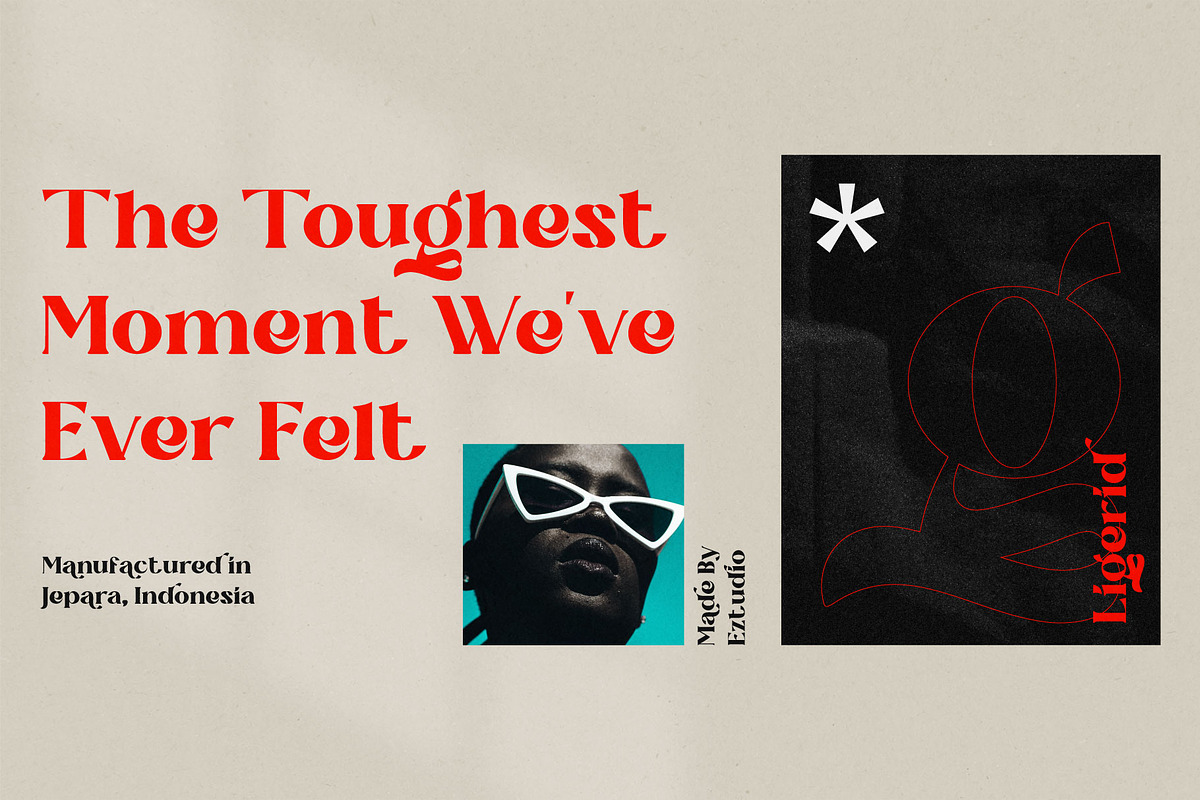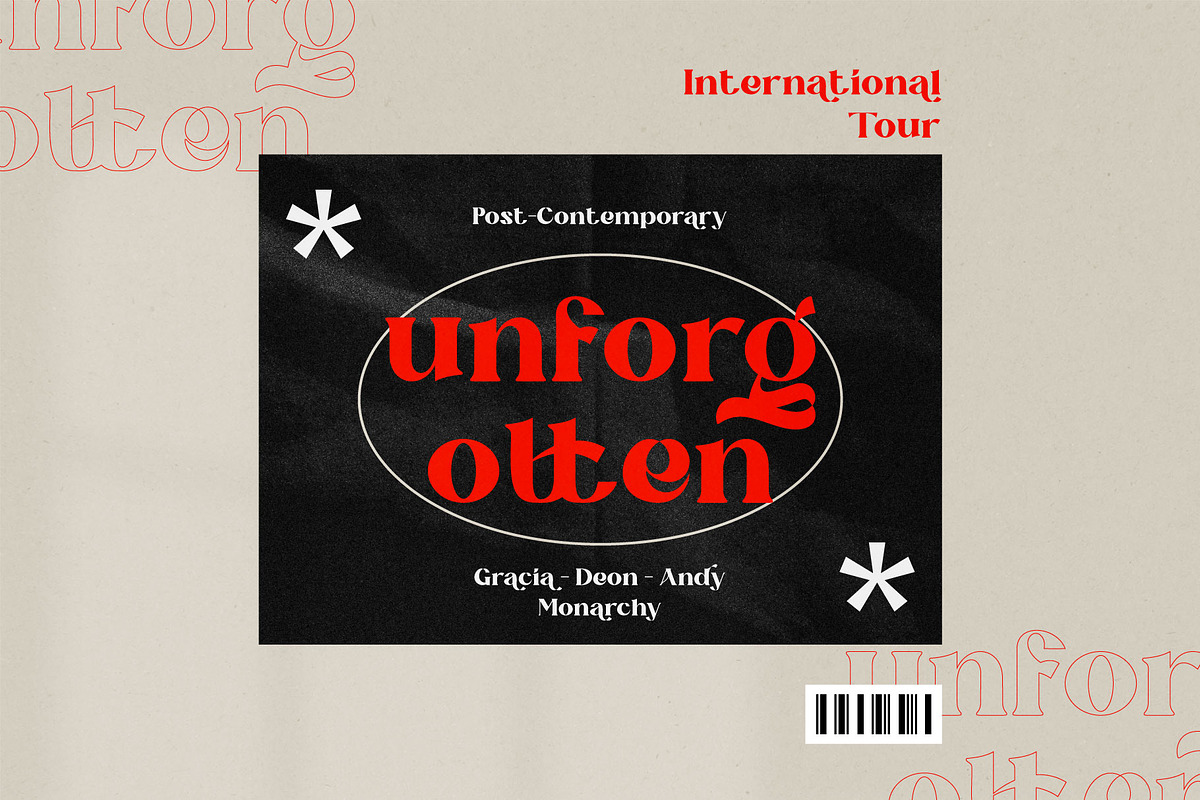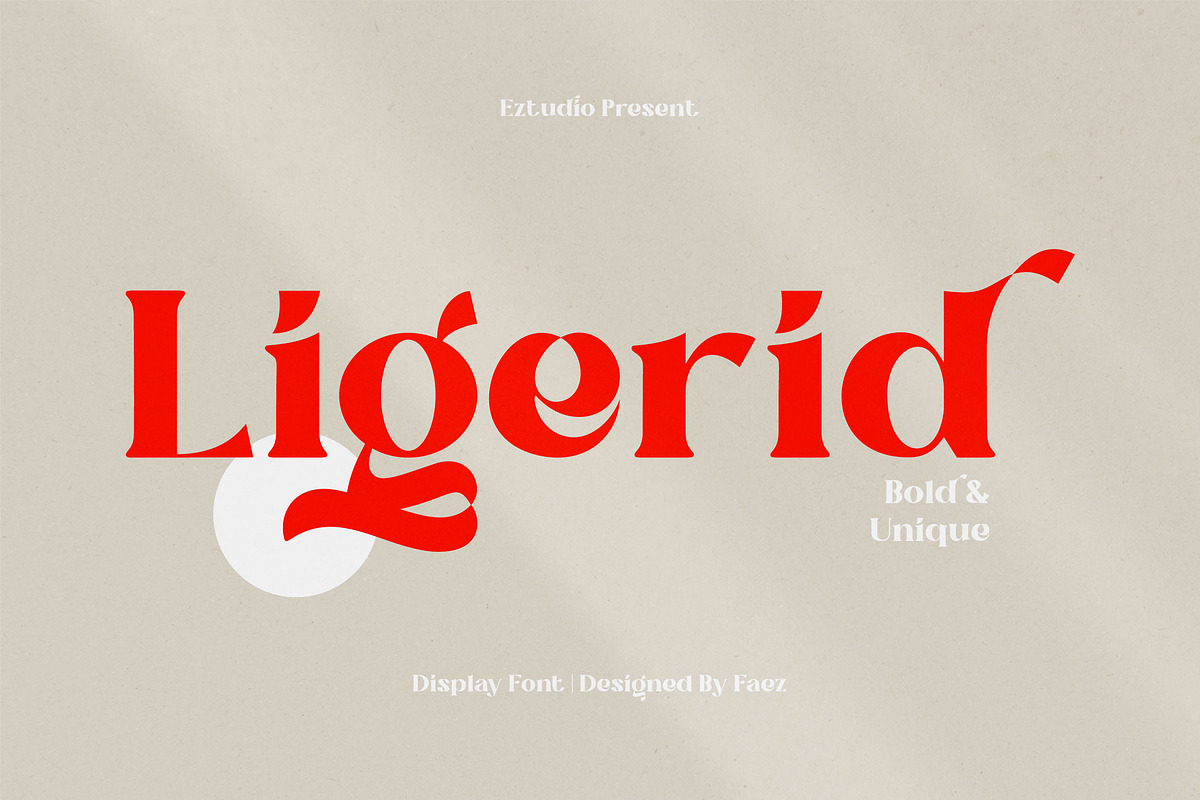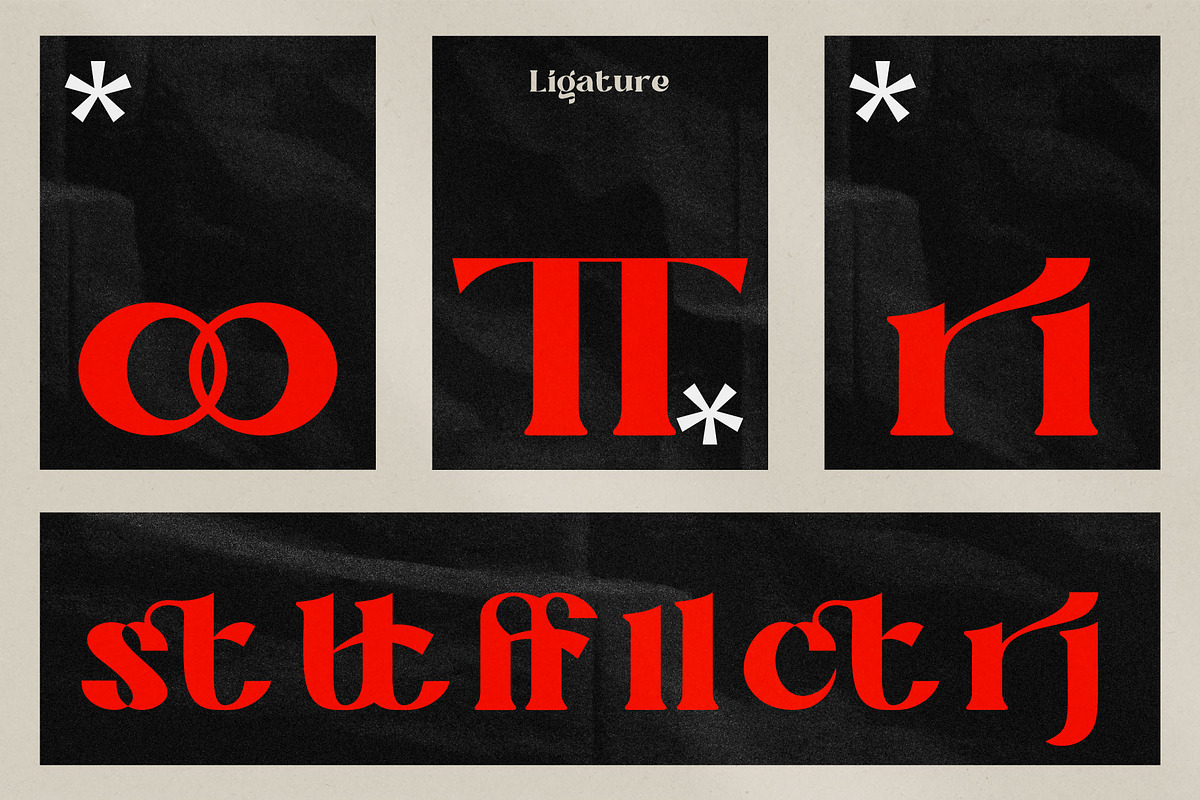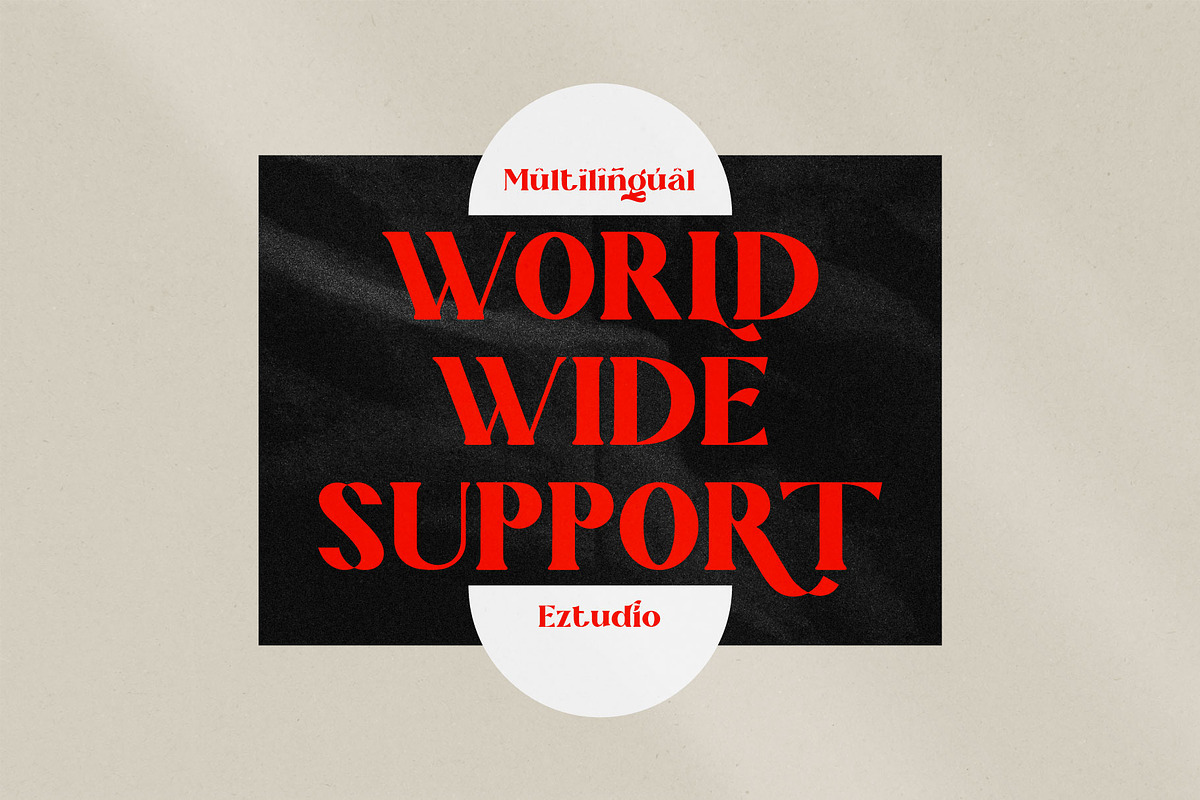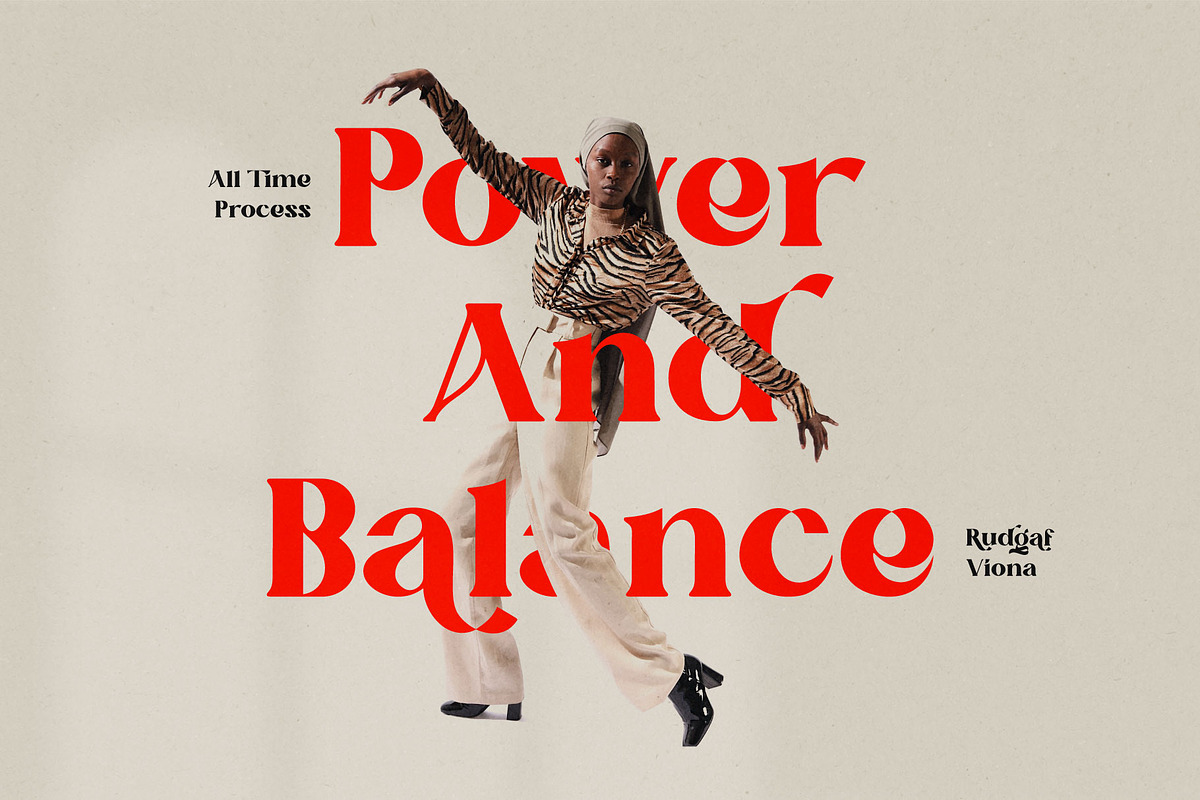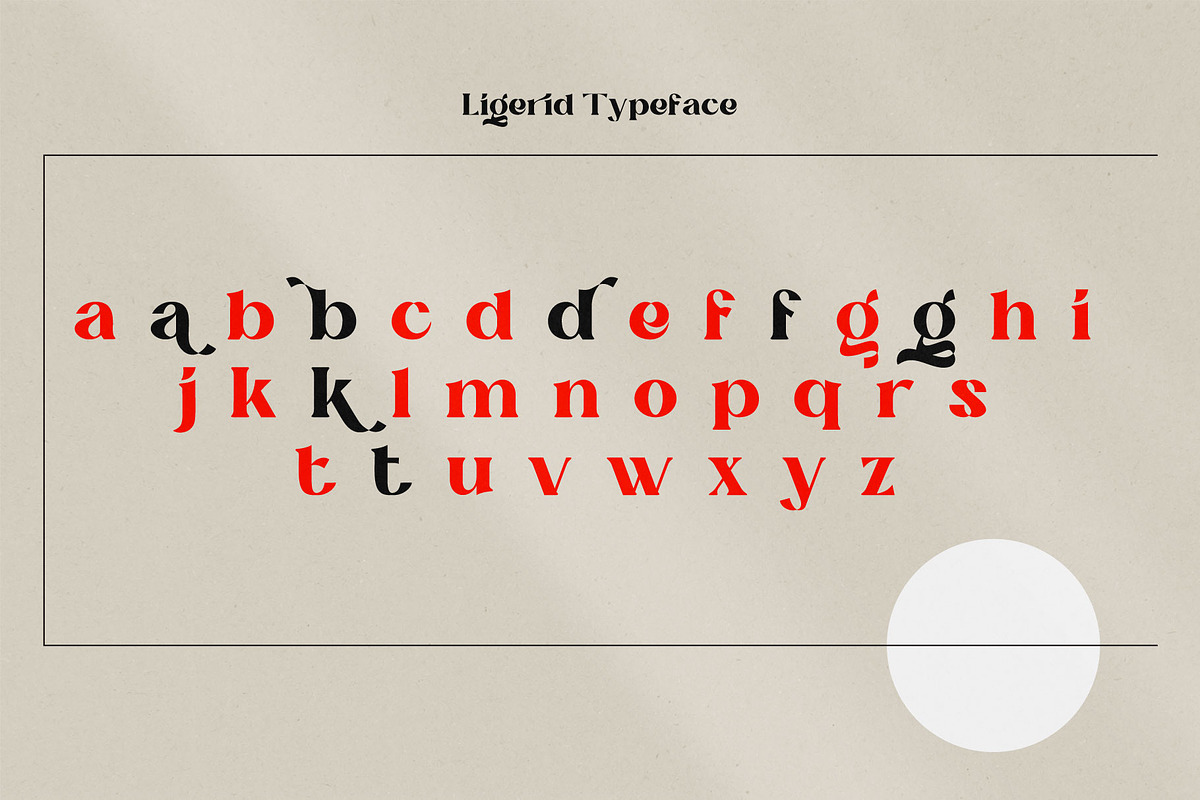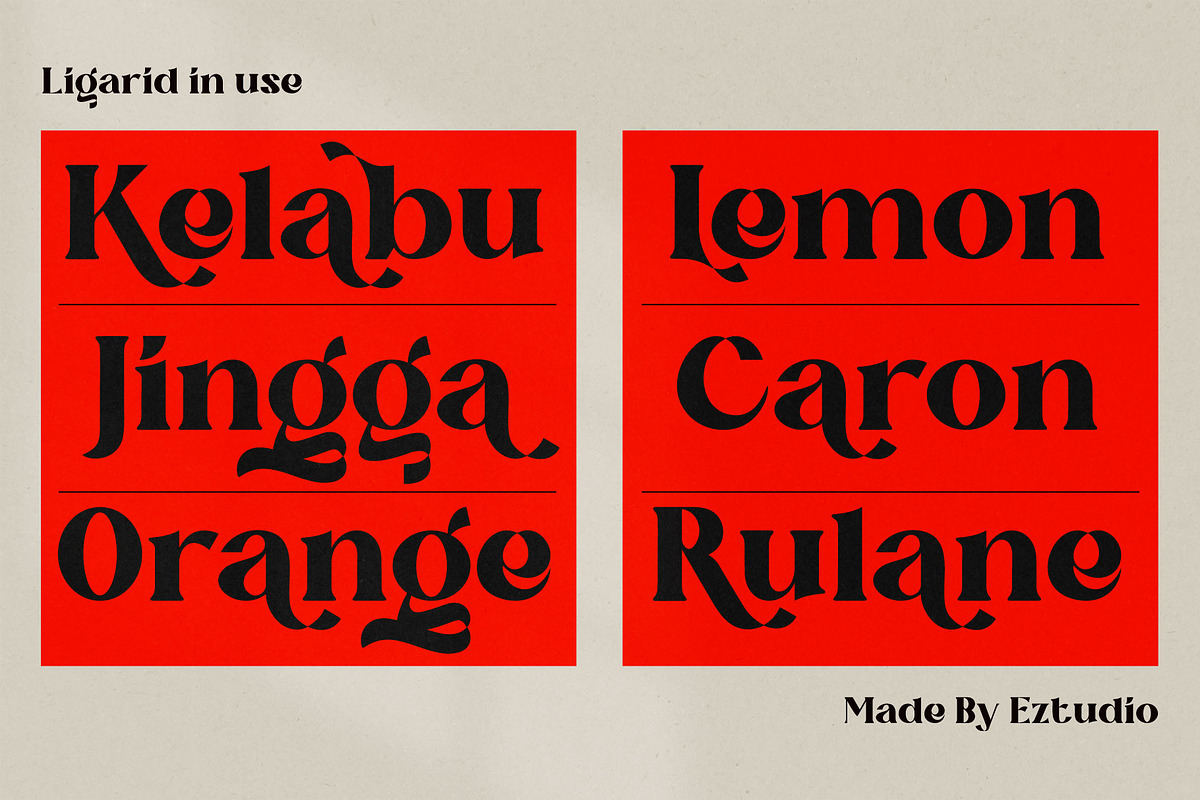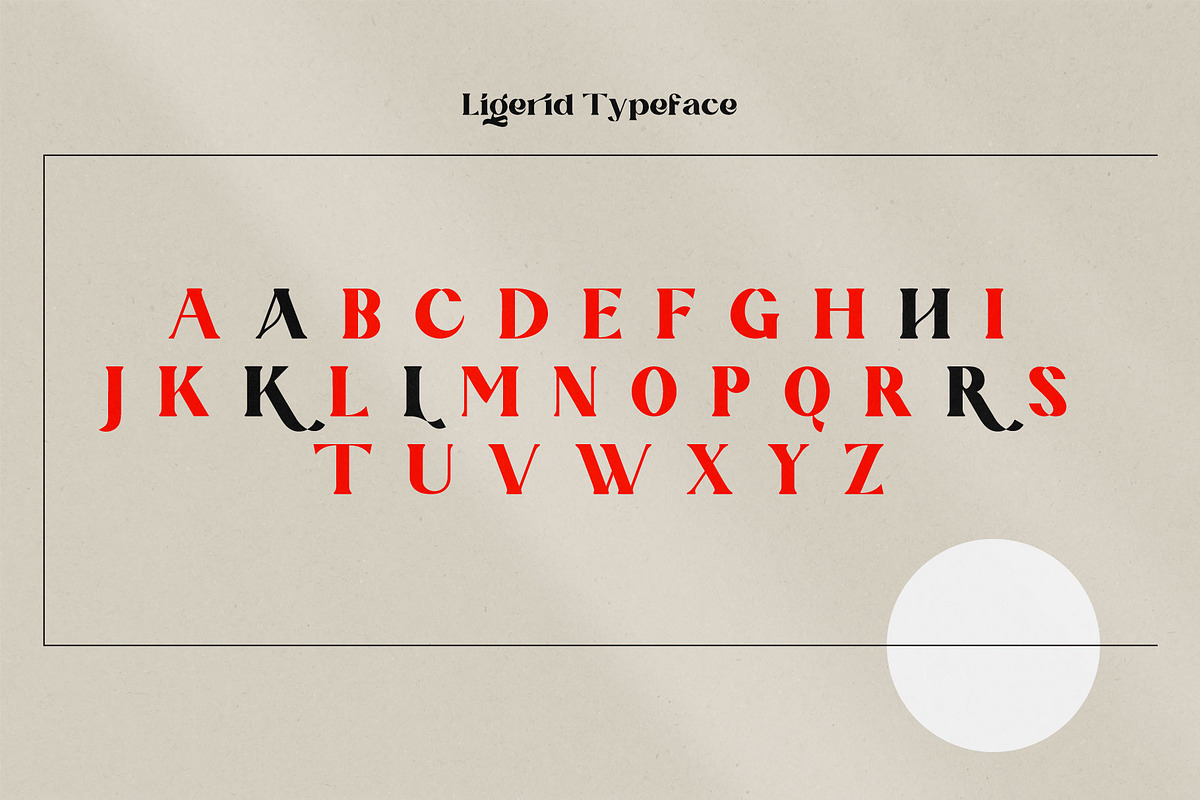
Ligerid - Chic Serif Font
Ligerid is a thick lettered and chic serif font, featuring the perfect amount of trendiness. Whether you’re using it for crafting, digital designing, presentations or greeting cards making, it’s perfect!
The Ligerid font includes:
- Uppercase Letters
- Lowercase Letters
- Special Characters
- Multilingual Glyphs